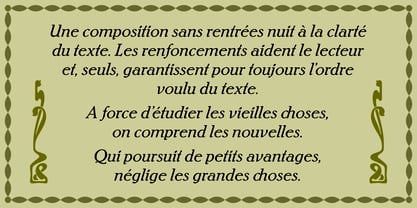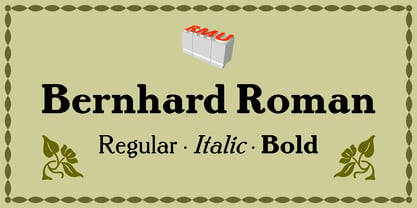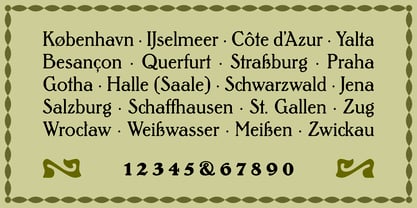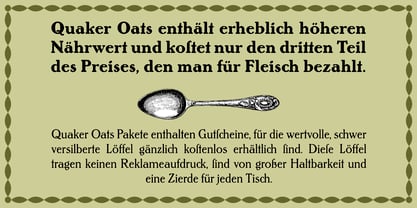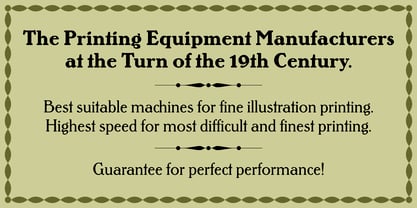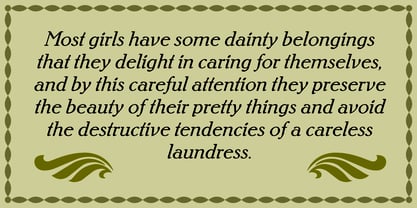
Bernhard Roman™
by RMU
The Bernhard Roman Font Family was designed by Lucian Bernhard, Ralph M. Unger and published by RMU. Bernhard Roman contains 3 styles and family package options. More about this family
Inspired by Lucian Bernhards fonts which were first released by the Flinsch foundry in 1911/12, the Bernhard Roman fonts are completely redrawn and redesigned revivals for modern use. Due to the letters typical design, these fonts give each project an individual character. A comment from that time reads as follows: ,The advertising artist Bernhard knew which typefaces were necessary for advertising purposes, therefor his typefaces were always succesful. All three fonts contain the long s which can be reached by typing the integral sign [∫] or changing the round s to the long s using the OT feature historical forms. Since these fonts contain several useful ligatures, it's recommended to activate both OT standard and discretionary ligatures.
Designers: Lucian Bernhard, Ralph M. Unger
Foundry: RMU
Bernhard Roman™